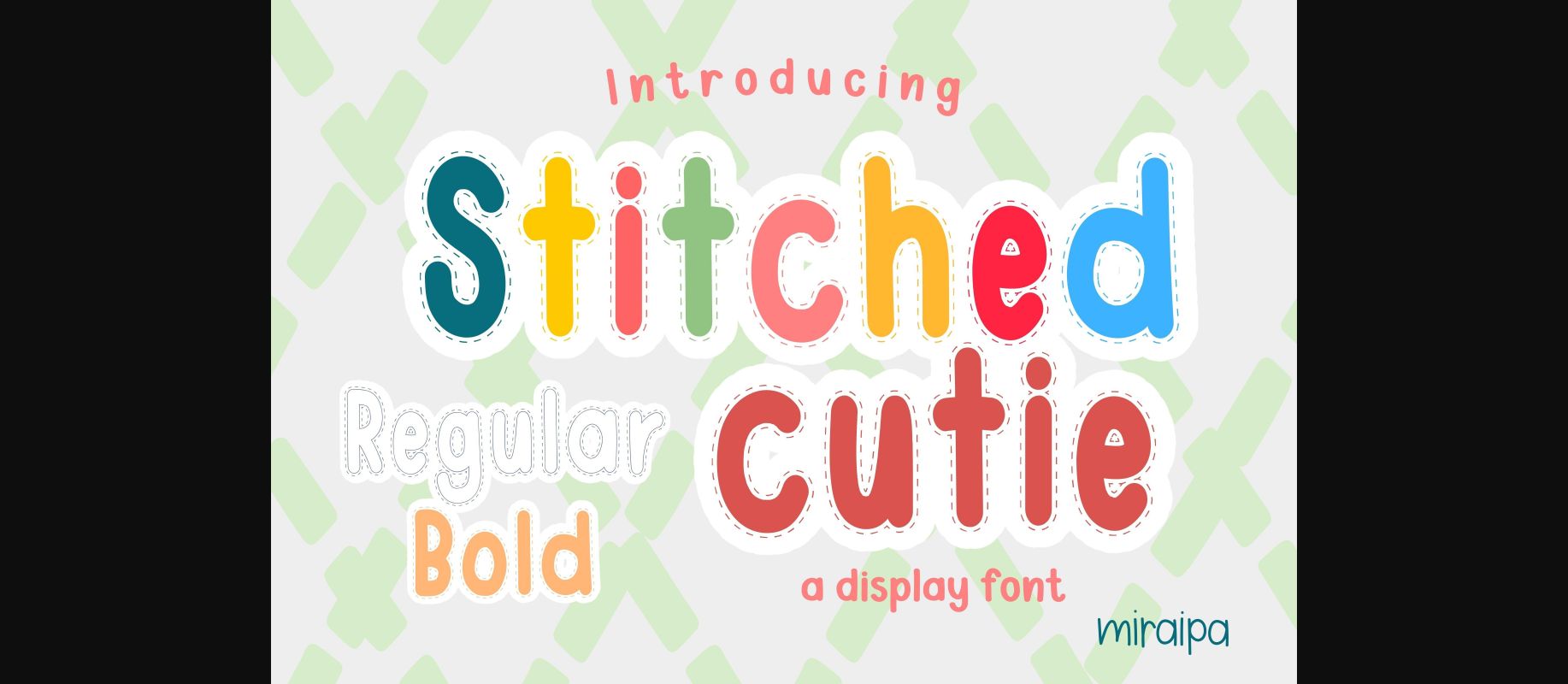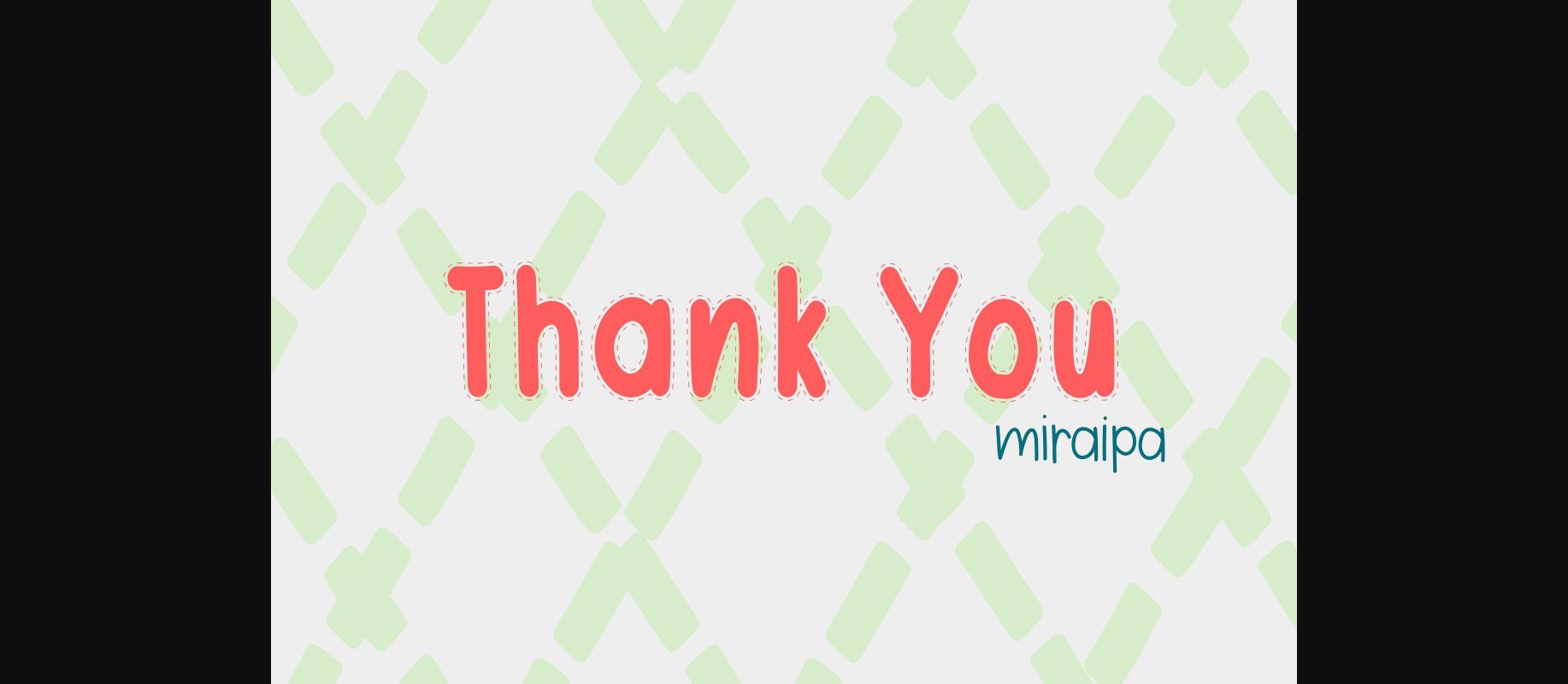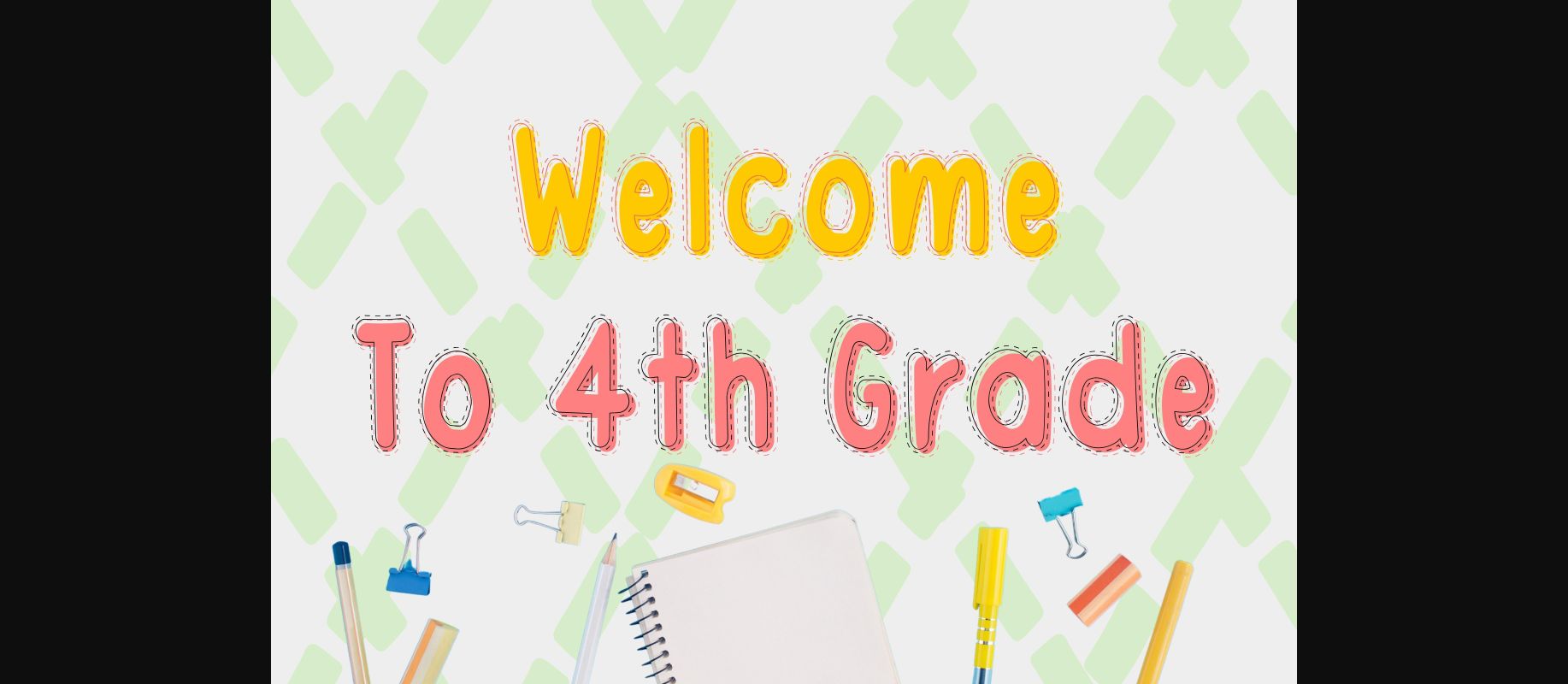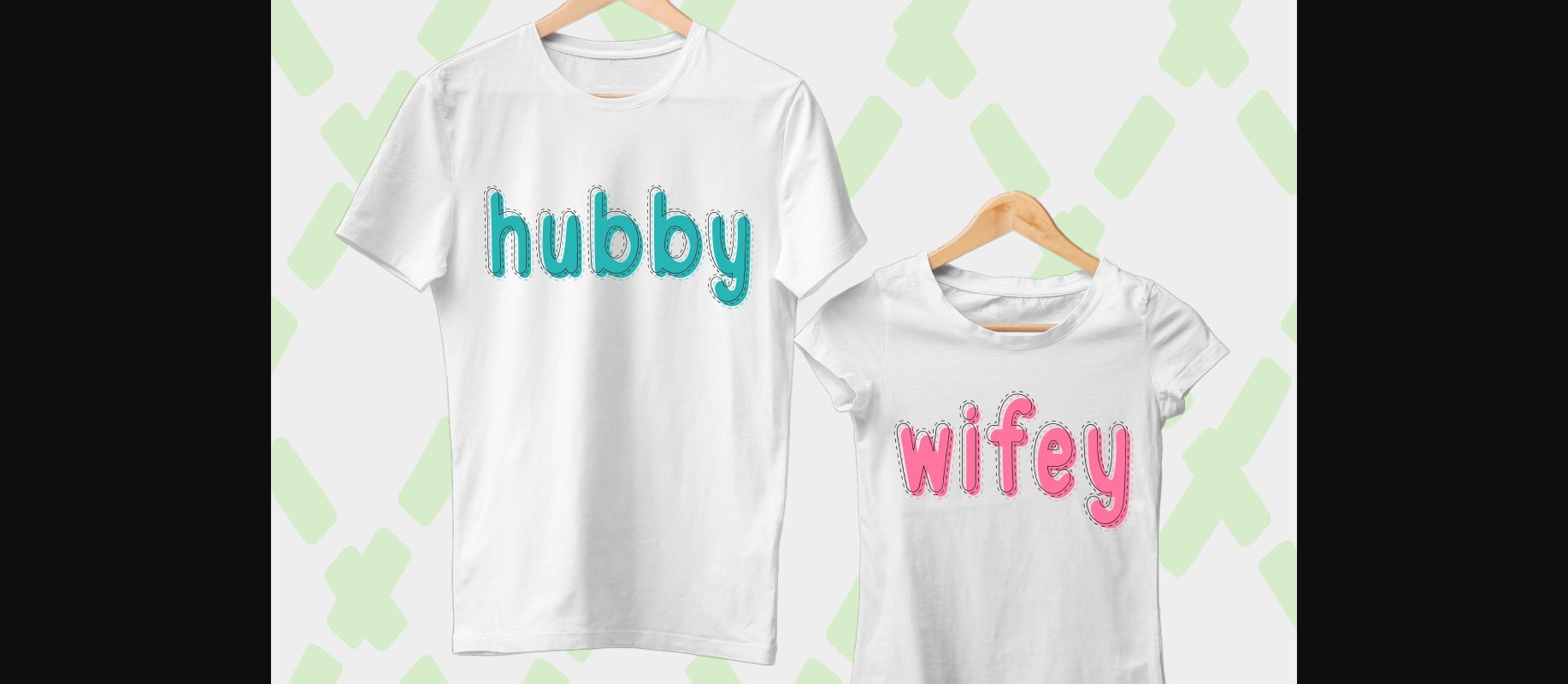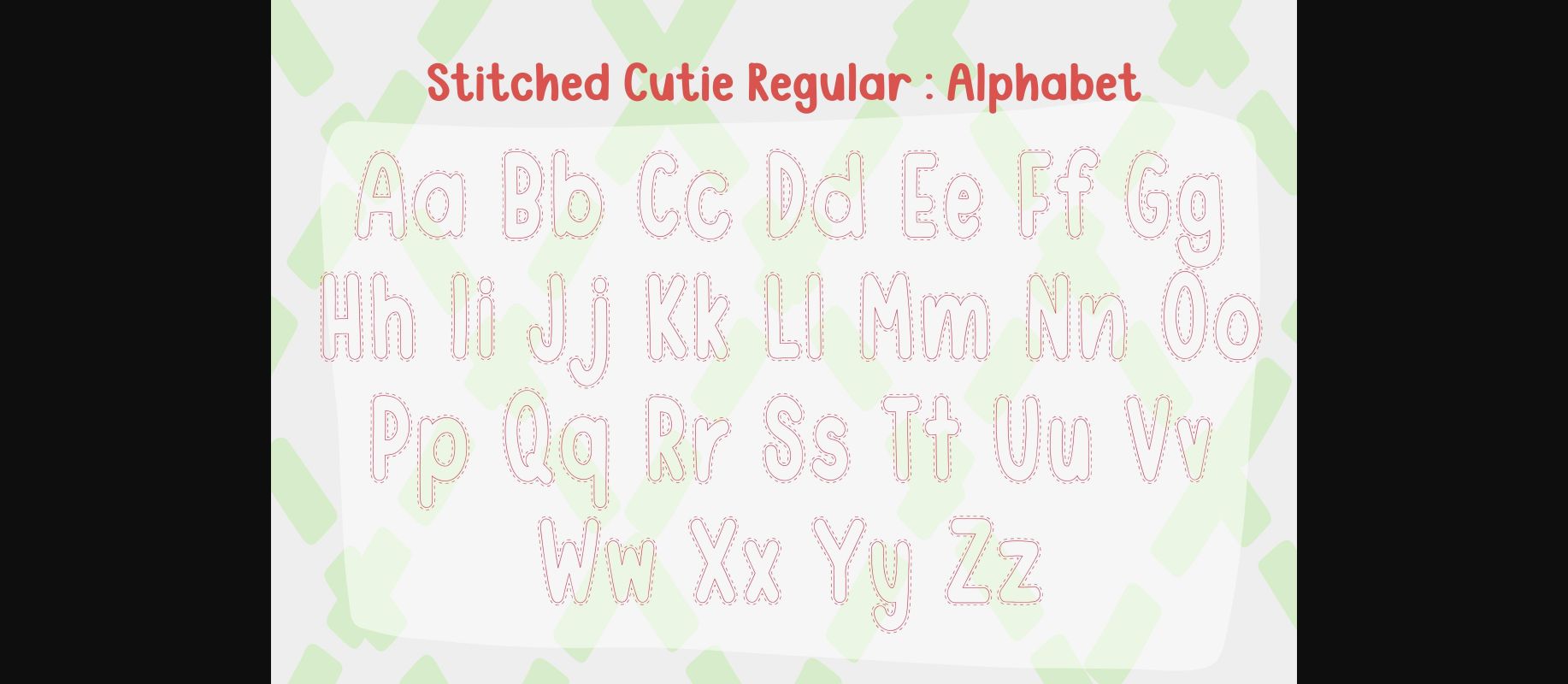
About Stitched Cutie Font
Stitched Cutie is a display font designed in a cute and lovely style. It would be awesome for your perfect projects, such as back-to-school, party decorations, party invitations, posters, blogs, clothing, child-related designs, greeting cards, social media posts, or anything that needs a friendly and fresh touch and bringing any DIY projects to life.